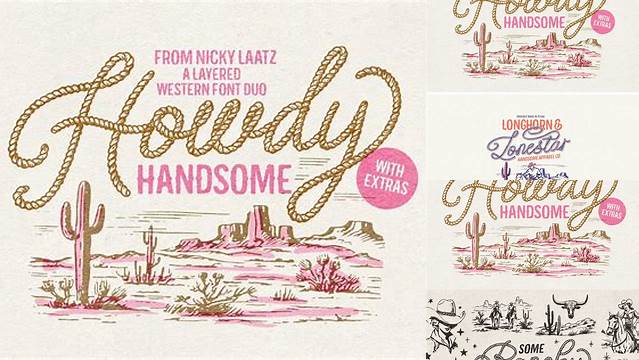
Howdy Handsome Font Duo: Free Download & Layering Guide
Hey guys! Ever stumbled upon a font that just screams personality? Well, buckle up, because we're diving headfirst into the world of the Howdy Handsome layered font duo. This font is seriously cool, offering a unique layered effect that can take your designs from zero to hero in seconds. And guess what? We're talking about a free download here! Let's explore how to snag this awesome font and how to make the most of its layered goodness.
1. What Makes Howdy Handsome Font Duo So Special?
So, what's the buzz around the Howdy Handsome font duo? It's all about versatility and style. This isn't just your run-of-the-mill font; it's a combination of two fonts – usually a script and a sans-serif – designed to complement each other perfectly. The layered aspect adds another dimension, allowing you to create depth and visual interest in your text. Imagine using it for posters, logos, invitations, or even social media graphics. The possibilities are endless! The charm of this font lies in its ability to evoke a sense of rustic elegance, blending modern sensibilities with a touch of vintage appeal. Its carefully crafted letterforms ensure readability even in intricate designs, making it a practical choice for a wide array of applications. Furthermore, the Howdy Handsome font duo often comes with a variety of weights and styles, providing even greater flexibility for designers to tailor their typography to specific needs. Whether you're aiming for a bold statement or a subtle accent, this font duo offers the tools to achieve your desired effect with ease and finesse.
4. Understanding the Layered Font Structure
The magic of the Howdy Handsome layered font duo lies in its layers. Typically, you'll have a base font, a shadow font, and maybe even an outline font. Each layer is designed to sit on top of the other, creating a 3D or textured effect. To use it effectively, you'll need to place each layer on a separate layer in your design software and align them precisely. Experiment with different colors for each layer to achieve unique and eye-catching results. The key to mastering layered fonts is to understand how each layer interacts with the others. Play around with different combinations of colors, opacities, and blending modes to achieve a variety of effects. For example, you could use a darker color for the base layer to create a sense of depth, or a lighter color for the top layer to add a highlight. You can also experiment with different blending modes, such as multiply or overlay, to create more complex and nuanced effects. Remember to save your layered font styles as presets or templates so that you can easily reuse them in future projects.
5. Designing with Howdy Handsome: Tips and Tricks
Ready to put your new font to work? Here are a few tips to get you started. Use the Howdy Handsome font sparingly – it's a statement font, so don't overuse it. Pair it with simpler, cleaner fonts for body text to maintain readability. Experiment with different color combinations for the layers to create unique effects. Consider using it for headings, logos, and short quotes. And don't be afraid to get creative! Remember that typography is an art form in itself. Use the Howdy Handsome font to express your creativity and bring your design visions to life. Try incorporating it into your branding materials, website designs, or social media graphics. It's a great way to add a touch of personality and uniqueness to your projects. And don't forget to share your creations with the design community! Get feedback and inspiration from other designers to continue improving your skills and expanding your creative horizons. The world of typography is vast and ever-evolving, so embrace the learning process and have fun exploring the possibilities.
7. Color Palettes that Complement Howdy Handsome
Color is key! The right color palette can make or break your design. For the Howdy Handsome font, consider earthy tones like browns, greens, and oranges for a rustic feel. Or, go for a modern look with contrasting colors like black and white or blue and yellow. Experiment with different palettes to see what works best for your project. When choosing colors for your layered fonts, think about the overall mood and message that you want to convey. Warm colors like reds, oranges, and yellows can evoke feelings of energy, passion, and excitement. Cool colors like blues, greens, and purples can create a sense of calm, peace, and tranquility. Neutral colors like grays, beiges, and whites can provide a sophisticated and understated backdrop for your typography. In addition to the psychological effects of color, also consider the principles of color harmony. Complementary colors, which are opposite each other on the color wheel, can create a striking contrast. Analogous colors, which are adjacent to each other on the color wheel, can create a harmonious and balanced effect. Ultimately, the best color palette for your layered fonts is the one that resonates with your personal style and effectively communicates your design goals.
8. Using Howdy Handsome for Logos
The Howdy Handsome font can be an excellent choice for logo design, especially if you're going for a vintage, rustic, or handcrafted aesthetic. The layered effect can add depth and dimension to your logo, making it stand out from the crowd. Use the font sparingly, and pair it with a simple icon or graphic element to create a balanced and memorable logo. When using the Howdy Handsome font for logo design, it's important to consider the scalability and legibility of your logo. Make sure that the font is readable at different sizes, and that the layered effect doesn't become too overwhelming when the logo is scaled down. You may need to simplify the design or adjust the spacing between the layers to ensure that the logo remains clear and recognizable at all sizes. Additionally, think about the versatility of your logo. Will it work well on different backgrounds and in different color schemes? Test your logo in various contexts to ensure that it maintains its impact and effectiveness. And don't forget to get feedback from other designers or potential customers to refine your logo and make it the best it can be.
9. Howdy Handsome in Website Design
Integrating the Howdy Handsome font into your website design can add a touch of personality and uniqueness to your online presence. Use it for headings, banners, or call-to-action buttons to grab visitors' attention. However, be mindful of website loading times – layered fonts can sometimes be resource-intensive. Optimize the font files and use CSS to control the layering effects for better performance. When using the Howdy Handsome font in website design, it's crucial to consider the overall user experience. Make sure that the font is readable on different devices and screen sizes, and that it doesn't interfere with the website's navigation or functionality. You may need to adjust the font size, line height, and letter spacing to optimize the readability for different screen resolutions. Additionally, think about the website's color scheme and how the font interacts with the other design elements. Choose colors that complement the font and create a visually appealing and cohesive design. And don't forget to test your website on different browsers and devices to ensure that it displays correctly and provides a seamless user experience.
10. Creating Social Media Graphics with Howdy Handsome
Want your social media posts to pop? The Howdy Handsome font can help! Use it to create eye-catching graphics for Instagram, Facebook, or Twitter. Experiment with different color combinations and layering effects to create visuals that stand out in the feed. Just remember to keep your text concise and easy to read on smaller screens. When using the Howdy Handsome font for social media graphics, it's important to consider the platform's specific requirements and limitations. Each platform has its own optimal image sizes, aspect ratios, and character limits. Make sure that your graphics are properly sized and formatted for each platform to avoid distortion or cropping. Additionally, think about the platform's audience and the type of content that resonates with them. Tailor your graphics and messaging to appeal to your target audience and capture their attention. And don't forget to use relevant hashtags to increase the visibility of your posts and reach a wider audience. Social media is a dynamic and ever-changing landscape, so stay up-to-date with the latest trends and best practices to maximize your impact and engagement.
11. Mixing Howdy Handsome with Other Fonts
While Howdy Handsome is a star, it needs supporting characters. Pair it with simpler sans-serif fonts like Open Sans or Lato for body text. A classic serif font like Times New Roman can also create a nice contrast. The key is to choose fonts that complement Howdy Handsome without overpowering it. When mixing Howdy Handsome with other fonts, it's important to create a harmonious and balanced typographic hierarchy. Use Howdy Handsome for headings, subheadings, or call-to-action buttons to draw attention to key elements of your design. Then, use a simpler and more readable font for body text to ensure that the content is easy to consume. Consider the font weights, styles, and sizes when mixing fonts. Use different font weights to create visual contrast and guide the reader's eye through the content. Choose font styles that complement each other, such as pairing a script font with a sans-serif font. And use different font sizes to establish a clear hierarchy and emphasize important information. Ultimately, the goal is to create a typographic composition that is both visually appealing and functionally effective.
12. Alternatives to Howdy Handsome Font Duo
If you're looking for similar vibes, check out fonts like "The Woodlands", "Blackjack", or "Wildwood". These fonts offer similar layered effects and rustic charm. Experiment with different options to find the perfect font for your project. When exploring alternatives to the Howdy Handsome font duo, it's important to consider your specific design needs and preferences. Think about the overall style and mood that you want to convey, and look for fonts that align with your vision. Consider the font's readability, versatility, and scalability. Will it work well in different contexts and at different sizes? Explore different font foundries and marketplaces to discover a wide range of options. And don't be afraid to experiment with different font combinations to find the perfect pairing for your project. The world of typography is vast and diverse, so take the time to explore and discover new fonts that inspire you.
13. The License: What You Need to Know
Always, always read the font license! A free download doesn't always mean you can use it for commercial projects. Pay attention to the terms and conditions to avoid any legal issues down the road. Make sure you understand whether the font is free for personal use only, or if it includes commercial use rights. If you're unsure, contact the font designer or distributor for clarification. Ignoring the license can lead to serious consequences, so it's always best to be safe than sorry. Understanding the font license is crucial for respecting the rights of the font designer and avoiding any legal issues. The license outlines the terms and conditions of using the font, including whether it can be used for personal or commercial purposes, whether it can be modified or redistributed, and whether attribution is required. Before using any font in a project, take the time to carefully read and understand the license agreement. If you're unsure about any of the terms, don't hesitate to contact the font designer or distributor for clarification. By respecting the font license, you're supporting the creative community and ensuring that you're using the font legally and ethically.
14. Howdy Handsome and Branding Consistency
If you're using Howdy Handsome for your brand, stick with it! Consistency is key to building brand recognition. Use the font consistently across all your marketing materials, from your website to your social media graphics. This will help create a cohesive and memorable brand identity. Maintaining branding consistency is crucial for building a strong and recognizable brand. When using the Howdy Handsome font for branding purposes, make sure that it aligns with your brand's overall personality and values. Use the font consistently across all your marketing materials, including your logo, website, social media graphics, and print collateral. This will help create a cohesive and unified brand image that resonates with your target audience. Additionally, develop a set of brand guidelines that outline the specific ways in which the font should be used, including font size, color, and spacing. This will ensure that all members of your team are using the font consistently and accurately.
15. Kerning and Leading with Howdy Handsome
Even a beautiful font needs a little tweaking. Pay attention to kerning (the space between letters) and leading (the space between lines) to ensure optimal readability. Adjust these settings in your design software to create a visually appealing and easy-to-read text. Kerning and leading are essential typographic principles that can significantly impact the readability and visual appeal of your text. Kerning refers to the spacing between individual letters, while leading refers to the spacing between lines of text. When working with the Howdy Handsome font, pay close attention to the kerning and leading to ensure that the text is easy to read and visually balanced. Adjust the kerning to create consistent spacing between letters and avoid any awkward gaps or overlaps. Adjust the leading to create comfortable spacing between lines of text and prevent the text from feeling cramped or crowded. Experiment with different kerning and leading settings to find the optimal combination for your specific design.
16. The Psychology of Using Layered Fonts
Layered fonts like Howdy Handsome can evoke different emotions and associations. They can add a sense of depth, dimension, and visual interest to your designs. Consider the psychological impact of your font choice and use it to effectively communicate your message. The psychology of typography explores the ways in which fonts can influence our emotions, perceptions, and behaviors. Layered fonts, in particular, can evoke a sense of complexity, depth, and visual interest. When using the Howdy Handsome font, consider the psychological impact of the layered effect and how it aligns with your overall design goals. Does it create a sense of sophistication and elegance? Or does it evoke a more playful and whimsical mood? Use the layered effect to effectively communicate your message and connect with your target audience on an emotional level. Additionally, consider the font's readability and accessibility. Make sure that the layered effect doesn't interfere with the text's legibility, and that the font is easy to read for people with visual impairments.
17. Howdy Handsome: Print vs. Digital Use
Keep in mind that fonts can behave differently in print and digital media. Test your Howdy Handsome designs in both formats to ensure they look their best. Adjust the font size, kerning, and leading as needed to optimize readability in each medium. When using the Howdy Handsome font for print and digital media, it's important to consider the unique characteristics of each format. Print media typically has higher resolution than digital media, which means that fonts can appear sharper and more detailed in print. However, print media also has limitations in terms of color and interactivity. Digital media, on the other hand, allows for more dynamic and interactive designs, but it also has limitations in terms of resolution and display consistency. When designing for print, make sure that the font is legible at different sizes and that the colors are accurate and consistent. When designing for digital media, make sure that the font is optimized for different screen sizes and resolutions, and that it doesn't slow down the website's loading time. Test your designs in both formats to ensure that they look their best and effectively communicate your message.
18. Accessibility Considerations for Howdy Handsome
While Howdy Handsome is stylish, remember accessibility. Ensure sufficient contrast between the font and background for readability. Avoid using it for large blocks of text. Consider users with visual impairments and choose fonts that are easy to read for everyone. Accessibility is a crucial consideration for all design projects, including those that use the Howdy Handsome font. When using the font, make sure that it's accessible to people with visual impairments, cognitive disabilities, and other accessibility needs. Ensure that there's sufficient contrast between the font and background colors to make the text easy to read. Avoid using the font for large blocks of text, as it can be difficult to read for extended periods of time. Use alternative text for images that contain the font, and provide captions for videos that use the font. Additionally, consider using a font size that's large enough for people with low vision to read comfortably. By making your designs accessible, you're ensuring that everyone can access and enjoy your content.
19. Creating a Howdy Handsome Font Combination Guide
To streamline your design process, create a font combination guide. List the fonts that pair well with Howdy Handsome, along with examples of how to use them together. This will help you maintain consistency and create visually appealing designs every time. Creating a font combination guide is a valuable tool for designers who want to maintain consistency and create visually appealing designs. The guide should list the fonts that pair well with the Howdy Handsome font, along with examples of how to use them together. Include information about font sizes, colors, and spacing. Additionally, provide guidance on how to use the fonts for different purposes, such as headings, body text, and call-to-action buttons. By creating a font combination guide, you're ensuring that all members of your team are using the fonts consistently and effectively.
20. Howdy Handsome and Seasonal Designs
The Howdy Handsome font can be adapted for various seasonal designs. Use warm colors and rustic elements for autumn designs, or cool colors and festive accents for winter designs. Let the season inspire your color palettes and layering effects. Seasonal designs offer a great opportunity to showcase the versatility of the Howdy Handsome font. Use warm colors and rustic elements for autumn designs, such as pumpkins, leaves, and corn stalks. Use cool colors and festive accents for winter designs, such as snowflakes, ornaments, and pine trees. Let the season inspire your color palettes and layering effects to create visually appealing and engaging designs that capture the spirit of the season. Additionally, consider incorporating seasonal themes and messages into your designs to connect with your audience on a deeper level.
21. Mastering the Art of Font Layering
Font layering is more than just stacking fonts. It's about creating depth, dimension, and visual interest. Experiment with different layering techniques, such as using shadows, outlines, and textures. The key is to create a cohesive and visually appealing effect. Mastering the art of font layering requires a deep understanding of typography, color theory, and design principles. It's about creating depth, dimension, and visual interest by layering different fonts, colors, and effects. Experiment with different layering techniques, such as using shadows, outlines, and textures. Consider the font's weight, style, and spacing when layering fonts. Use different colors and blending modes to create unique and visually appealing effects. The key is to create a cohesive and harmonious composition that effectively communicates your message.
22. The Future of Layered Fonts in Design
Layered fonts are here to stay. As design trends evolve, expect to see even more innovative and creative uses of layered fonts. Stay ahead of the curve by experimenting with new techniques and exploring the possibilities of this exciting typographic style. The future of layered fonts in design is bright. As design trends evolve, expect to see even more innovative and creative uses of layered fonts. New technologies and software are making it easier than ever to create complex and visually stunning layered font designs. Stay ahead of the curve by experimenting with new techniques and exploring the possibilities of this exciting typographic style. Consider how layered fonts can be used to create more immersive and interactive design experiences. The possibilities are endless.
23. DIY: Creating Your Own Layered Font Effect
Don't have a layered font? No problem! You can create your own layered effect in programs like Photoshop or Illustrator. Simply duplicate your text layer, apply different effects (like a shadow or outline) to each layer, and stack them on top of each other. DIY font effects can add a personal touch to your designs. Creating your own layered font effect is a fun and rewarding way to add a personal touch to your designs. Use programs like Photoshop or Illustrator to duplicate your text layer, apply different effects (like a shadow or outline) to each layer, and stack them on top of each other. Experiment with different colors, blending modes, and opacity settings to create unique and visually appealing effects. The key is to be creative and have fun.
24. Resources for Learning More About Typography
Want to become a typography pro? There are tons of resources available online and in libraries. Check out books, websites, and online courses to deepen your knowledge of typography and improve your design skills. Many websites and online courses offer tutorials on typography. There are numerous resources for learning more about typography, including books, websites, and online courses. These resources can help you deepen your knowledge of typography, learn new techniques, and improve your design skills. Some popular resources include "The Elements of Typographic Style" by Robert Bringhurst, "Thinking with Type" by Ellen Lupton, and the online courses offered by Coursera and Skillshare.
25. Howdy Handsome in Motion Graphics
Take Howdy Handsome to the next level with motion graphics! Animate the layers to create dynamic and eye-catching visuals. This can be a great way to add personality to your videos and presentations. Motion graphics can bring the Howdy Handsome font to life. Animate the layers to create dynamic and eye-catching visuals. This can be a great way to add personality to your videos and presentations. Use programs like Adobe After Effects or Motion to create stunning motion graphics with the Howdy Handsome font. Experiment with different animation techniques, such as layering, masking, and keyframing. The possibilities are endless.
26. Ethical Considerations When Using Free Fonts
Just because a font is free doesn't mean you can use it however you want. Always respect the font designer's rights and follow the terms of the license. Give credit where credit is due, and support the designers who create the fonts you love. Ethical considerations are paramount when using free fonts. Just because a font is free doesn't mean you can use it however you want. Always respect the font designer's rights and follow the terms of the license. Give credit where credit is due, and support the designers who create the fonts you love. Consider purchasing a commercial license if you're using the font for a commercial project. By using free fonts ethically, you're supporting the design community and ensuring that you're using the fonts legally and responsibly.
27. Troubleshooting Common Font Problems
Fonts not showing up? Letters looking weird? Don't panic! There are a few common font problems that you can easily fix. Try restarting your computer, clearing your font cache, or reinstalling the font. If all else fails, consult the documentation for your design software. Troubleshooting common font problems can save you time and frustration. If fonts aren't showing up, letters are looking weird, or the font is displaying incorrectly, don't panic. There are a few common font problems that you can easily fix. Try restarting your computer, clearing your font cache, or reinstalling the font. If all else fails, consult the documentation for your design software or seek help from online forums and communities.
28. Inspiring Examples of Howdy Handsome Use
Need some inspiration? Check out examples of how other designers have used Howdy Handsome in their projects. Look for designs that showcase the font's versatility and creativity. Let these examples spark your own imagination and inspire your next design masterpiece. There are many inspiring examples of how designers have used the Howdy Handsome font in their projects. Look for designs that showcase the font's versatility and creativity. These examples can spark your own imagination and inspire your next design masterpiece. Check out websites like Behance and Dribbble to find examples of Howdy Handsome in action.
29. Maximizing Impact with Font Size and Weight
The size and weight of your font can have a big impact on readability and visual appeal. Experiment with different font sizes and weights to find the perfect balance for your design. Use larger font sizes for headings and smaller font sizes for body text. Use bolder font weights to emphasize important information. Maximizing impact with font size and weight is crucial for creating visually appealing and easy-to-read designs. Experiment with different font sizes and weights to find the perfect balance for your design. Use larger font sizes for headings and smaller font sizes for body text. Use bolder font weights to emphasize important information and guide the reader's eye through the content.